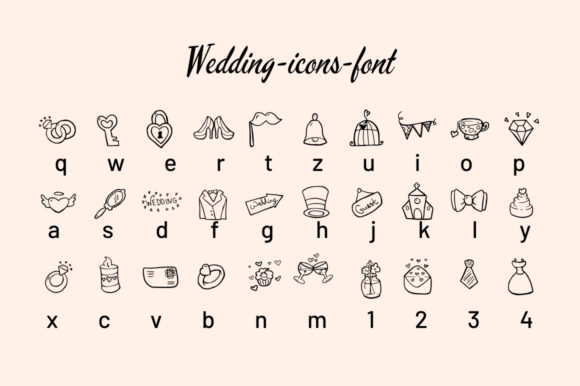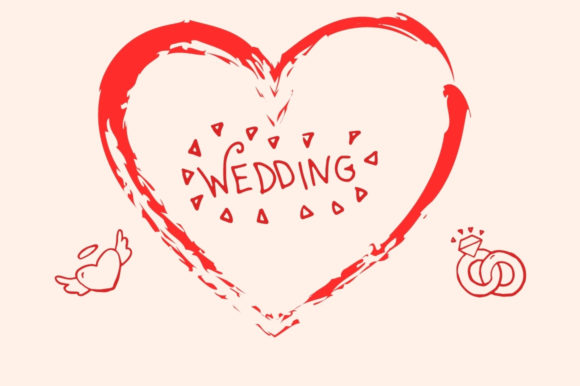
About Wedding Icons Font
“Wedding Icons” is an exceptional dingbats font that features a collection of 30 icons representing various wedding and love-related objects. This font is perfect for adding a special touch to any design idea related to weddings, engagements, anniversaries, or love-themed projects. Here are some creative ways to incorporate the “Wedding Icons” font into your designs:
1. Wedding Invitations: Use the icons from the “Wedding Icons” font to embellish wedding invitations and save-the-date cards. Add icons such as rings, hearts, champagne glasses, or wedding cakes to create decorative borders or accents that reflect the joyous occasion.
2. Wedding Websites: Enhance the visual appeal of wedding websites by incorporating the “Wedding Icons” font. Use the icons to create navigation buttons, decorative dividers, or graphics that represent different sections of the website, such as the ceremony, reception, or RSVP page.
3. Wedding Stationery: Extend the use of the “Wedding Icons” font to other wedding stationery, including programs, menus, place cards, and thank you cards. Incorporate relevant icons to indicate the order of events, menu items, table assignments, or to add a heartfelt touch to your thank you messages.
4. Social Media Graphics: Create engaging and eye-catching social media graphics for wedding-related announcements, countdowns, or love-themed posts. Utilize the icons from the “Wedding Icons” font to add visual interest and convey the celebratory nature of the occasion.
5. Scrapbooking and Memory Books: If you’re creating a wedding scrapbook or a memory book for a loved one, the “Wedding Icons” font can be a valuable asset. Use the icons to decorate the pages, highlight significant moments, or illustrate cherished memories.
6. Bridal Shower or Bachelorette Party Invitations: Design fun and themed invitations for bridal showers or bachelorette parties using the icons from the “Wedding Icons” font. Incorporate icons such as wedding dresses, champagne flutes, gifts, or balloons to set the tone and build excitement for the upcoming celebrations.
Remember to experiment with different combinations of icons, colors, and typography to create unique and personalized designs. The “Wedding Icons” font offers a wide range of symbols that can be mixed and matched to suit your specific design needs.
In summary, “Wedding Icons” is a unique dingbats font containing 30 icons of different wedding and love-related objects. Whether you’re working on wedding invitations, designing wedding websites, creating wedding stationery, developing social media graphics, or crafting scrapbooks and memory books, this font will add a special touch to your designs and help convey the love and joy associated with weddings. Enjoy exploring the various icons and let your creativity soar!